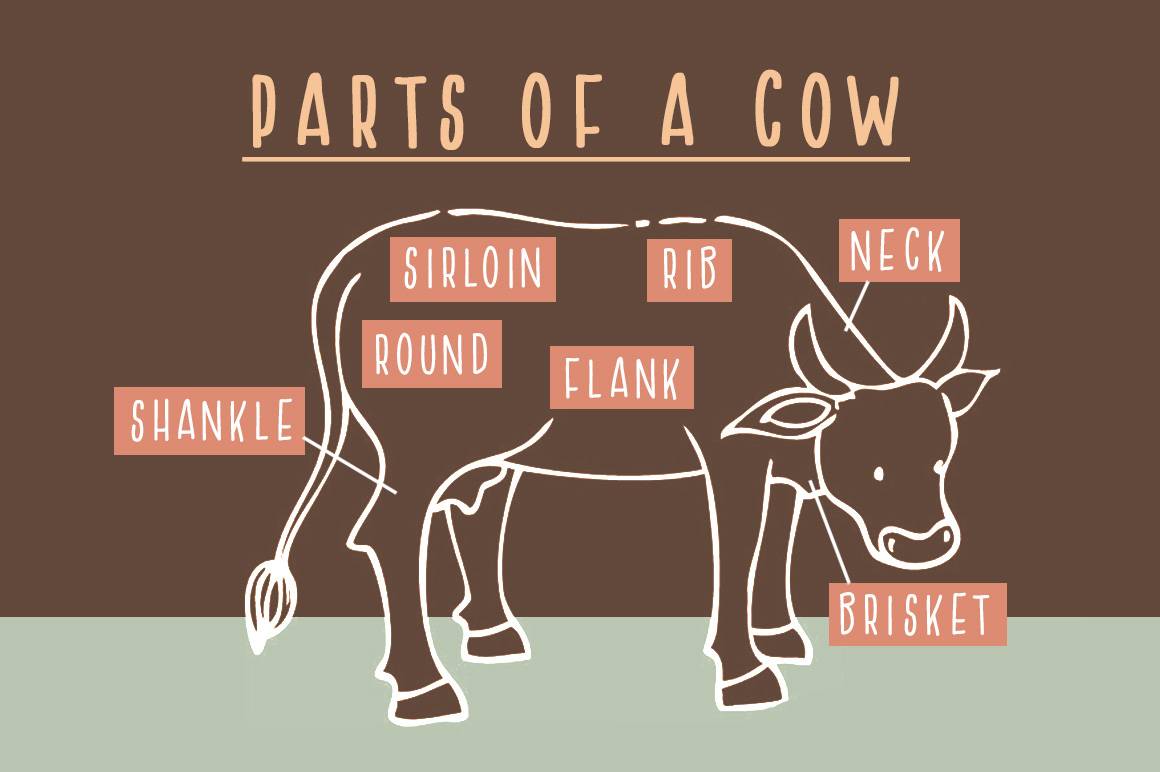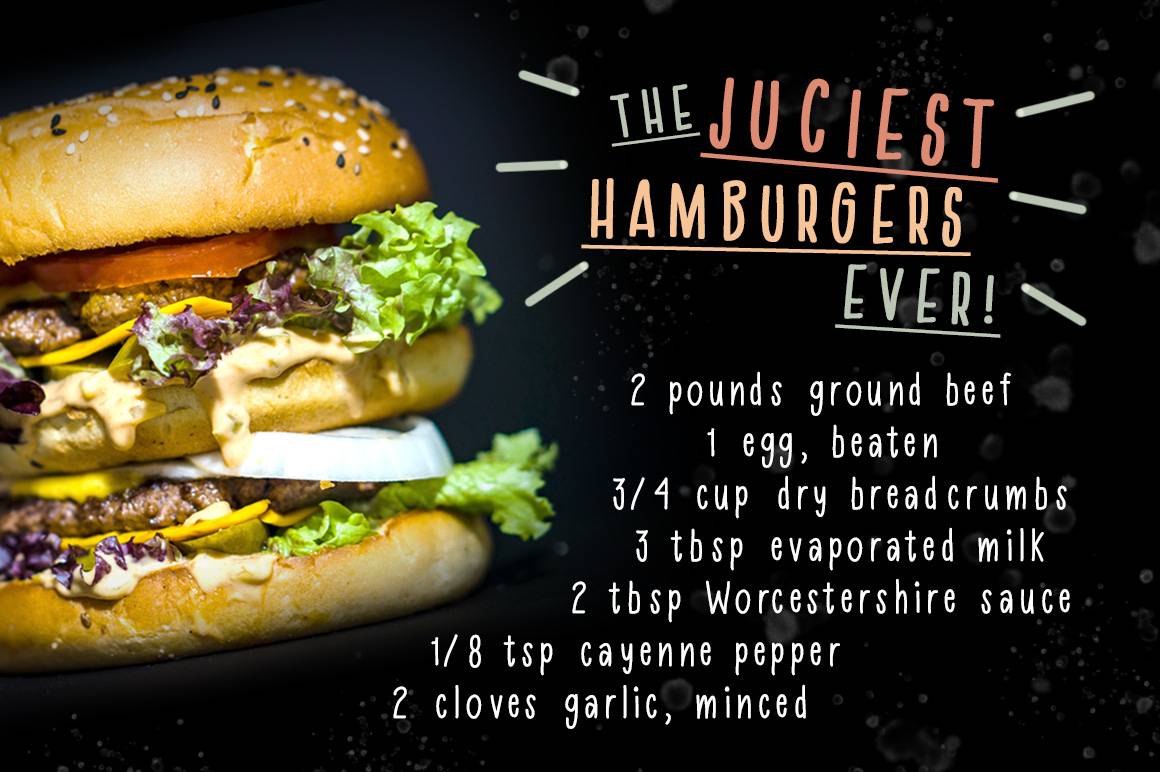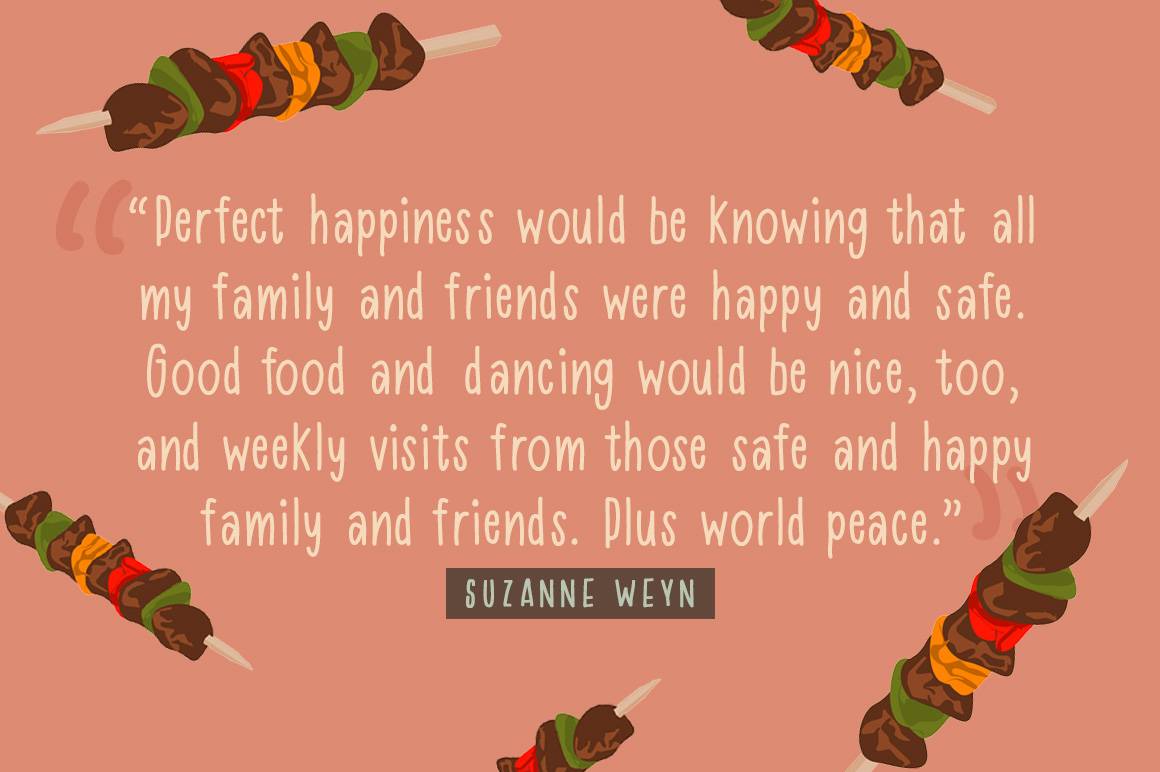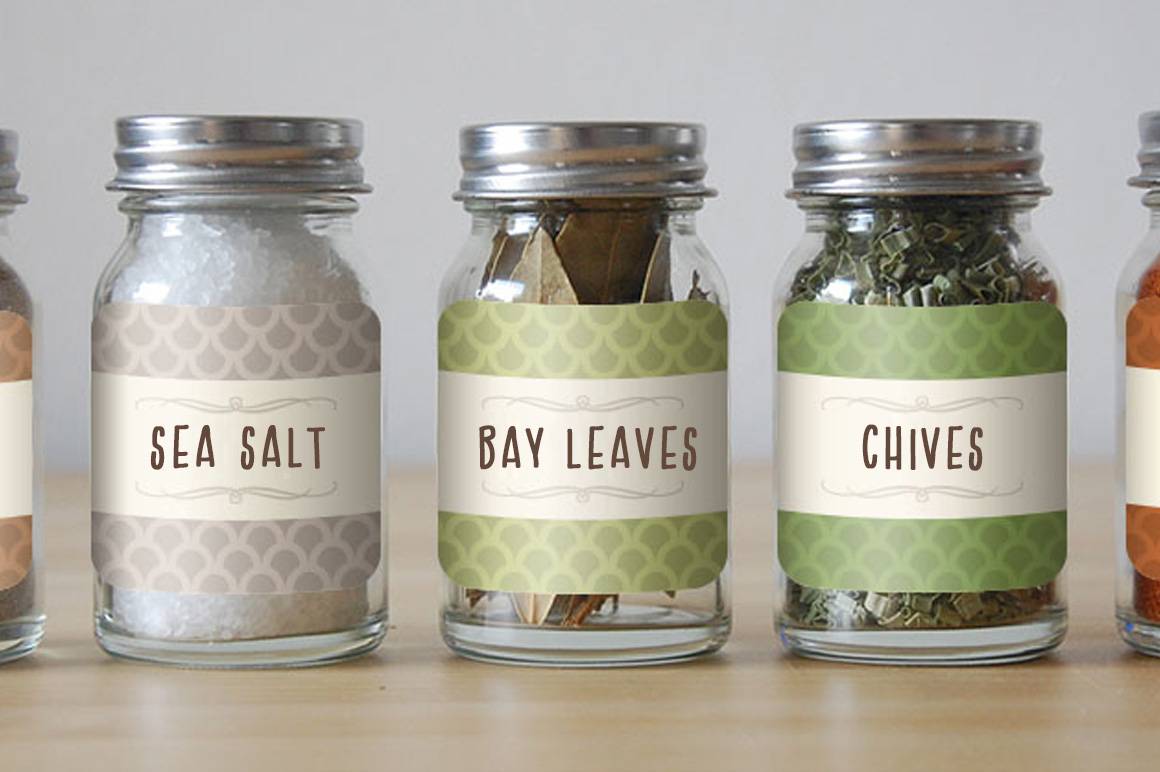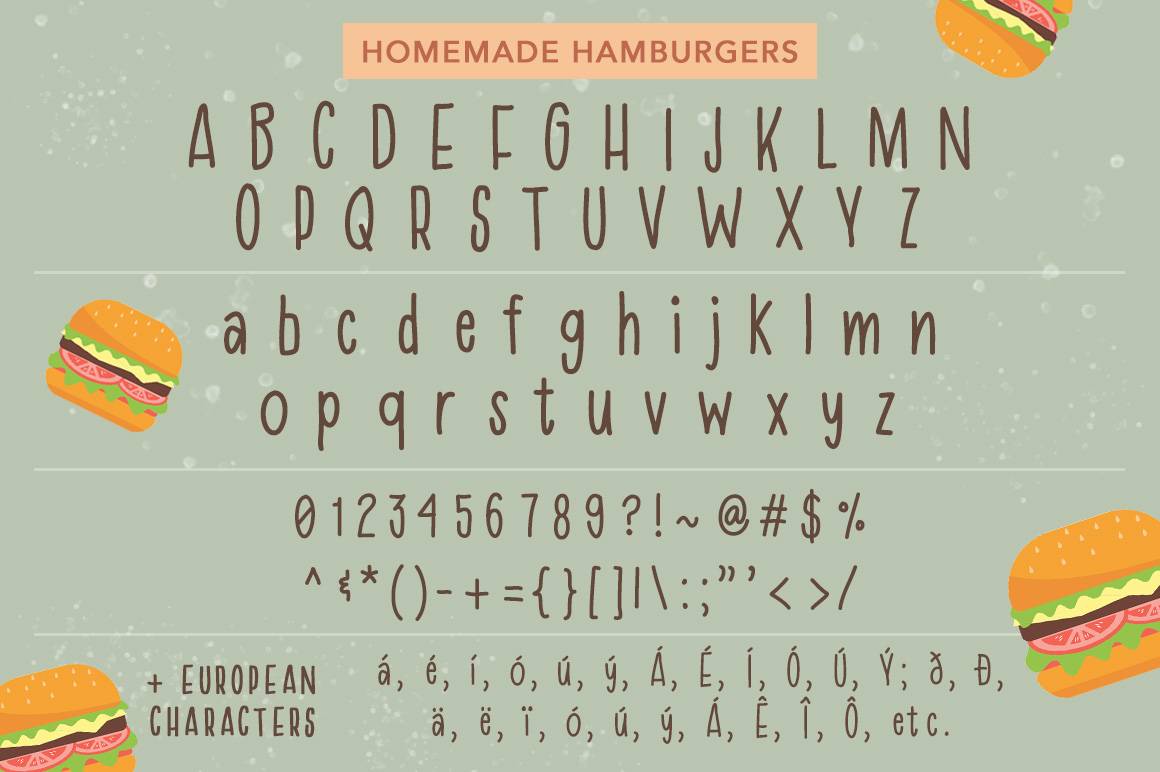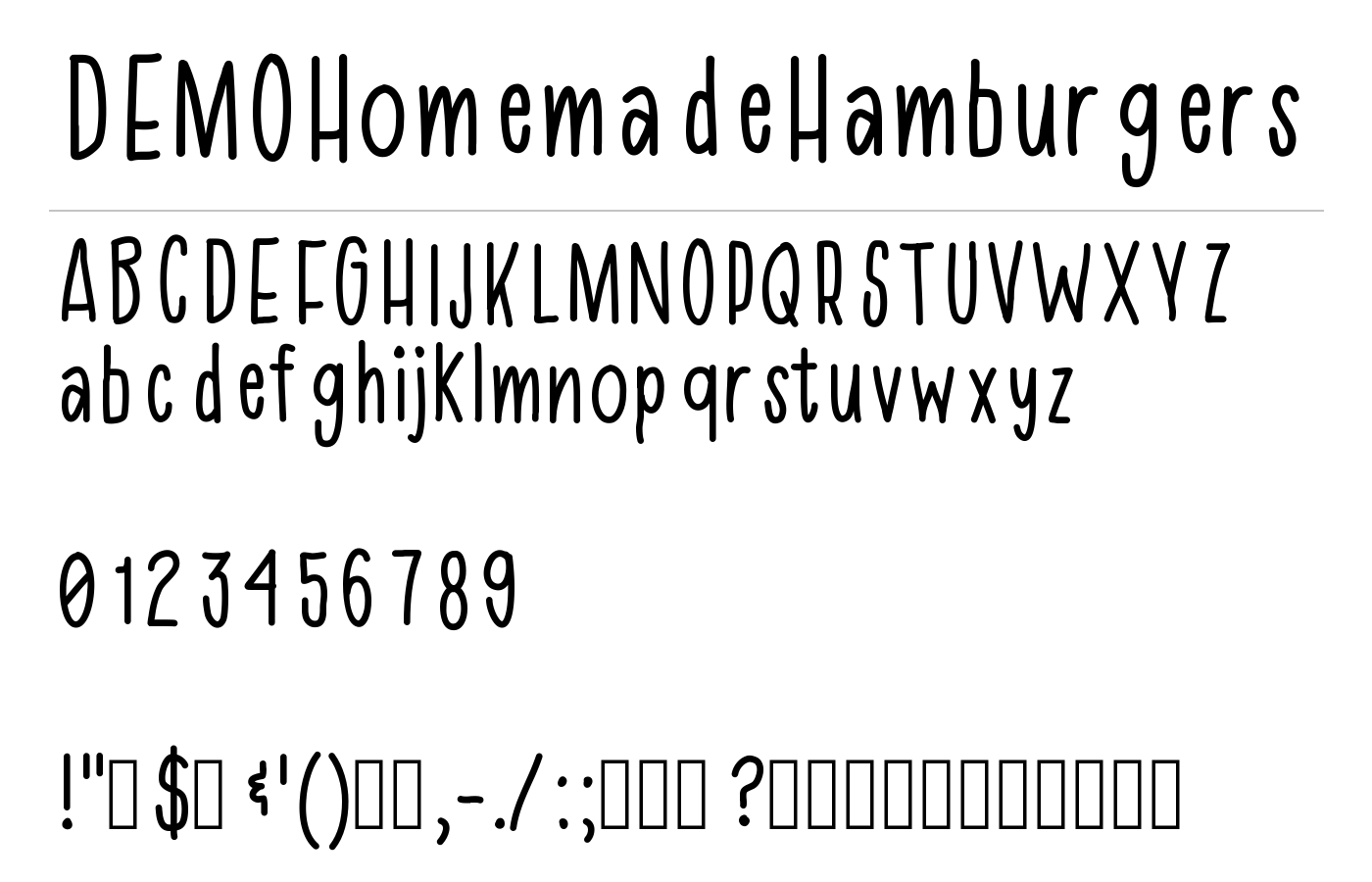
Homemade Hamburger is a playful, tall, and narrow sans serif font with a hand-drawn, casual feel. Its irregular strokes and quirky letterforms make it perfect for creative and friendly designs, especially in informal branding, children’s materials, and fun packaging. This font shines in headlines and display uses where a warm, approachable personality is desired.
Homemade Hamburger Font
About Homemade Hamburger Font